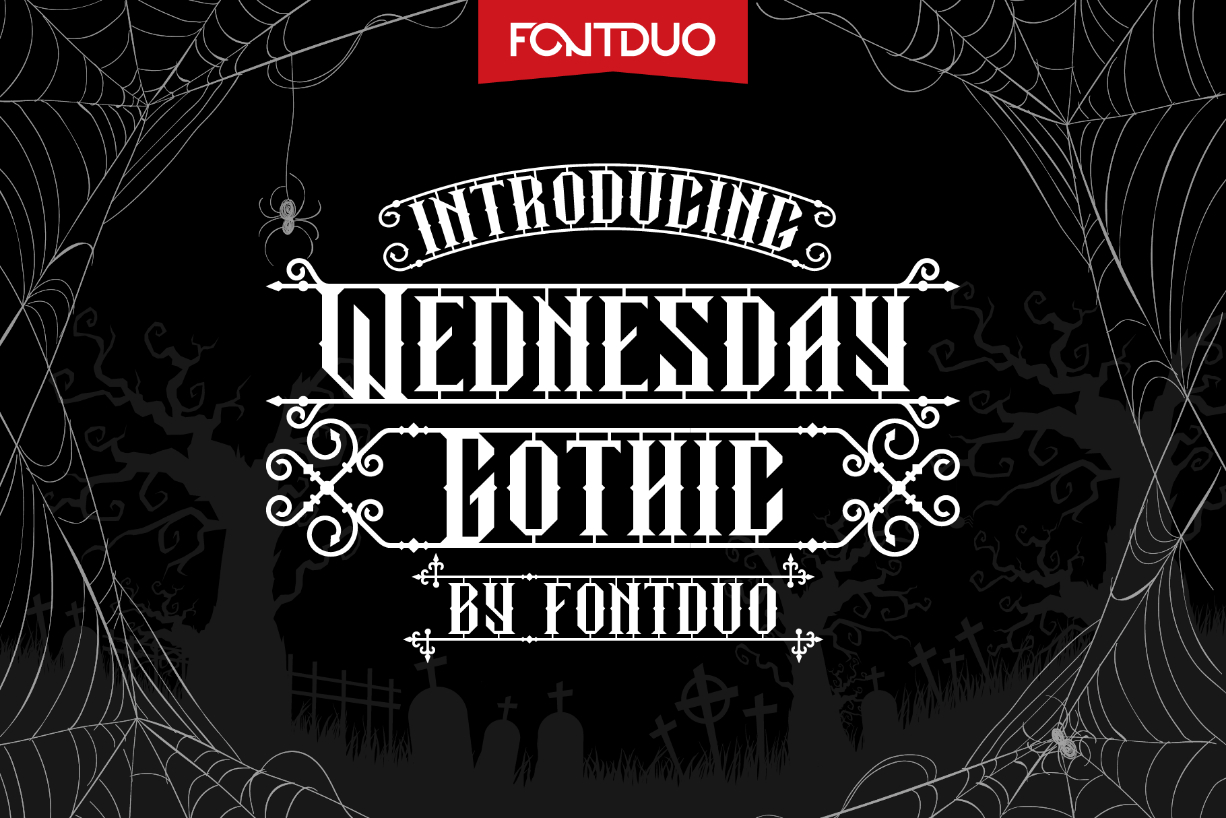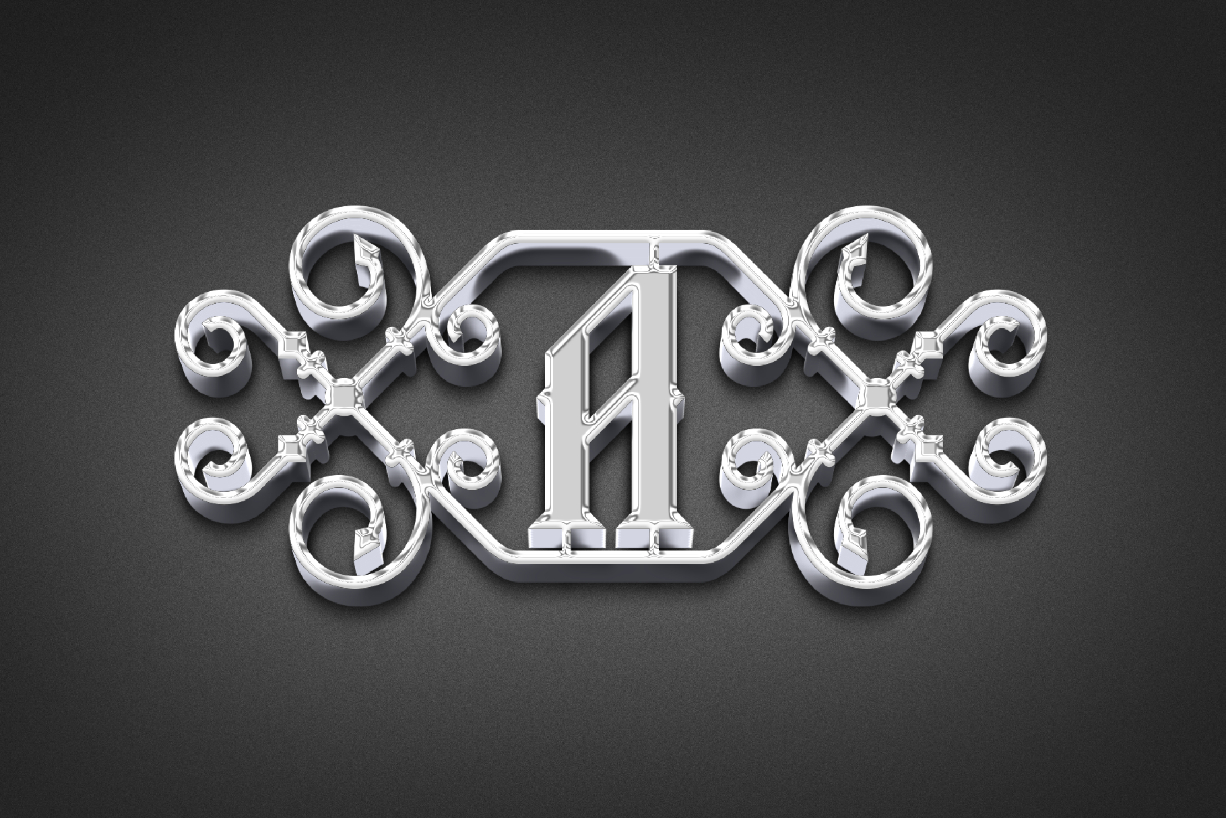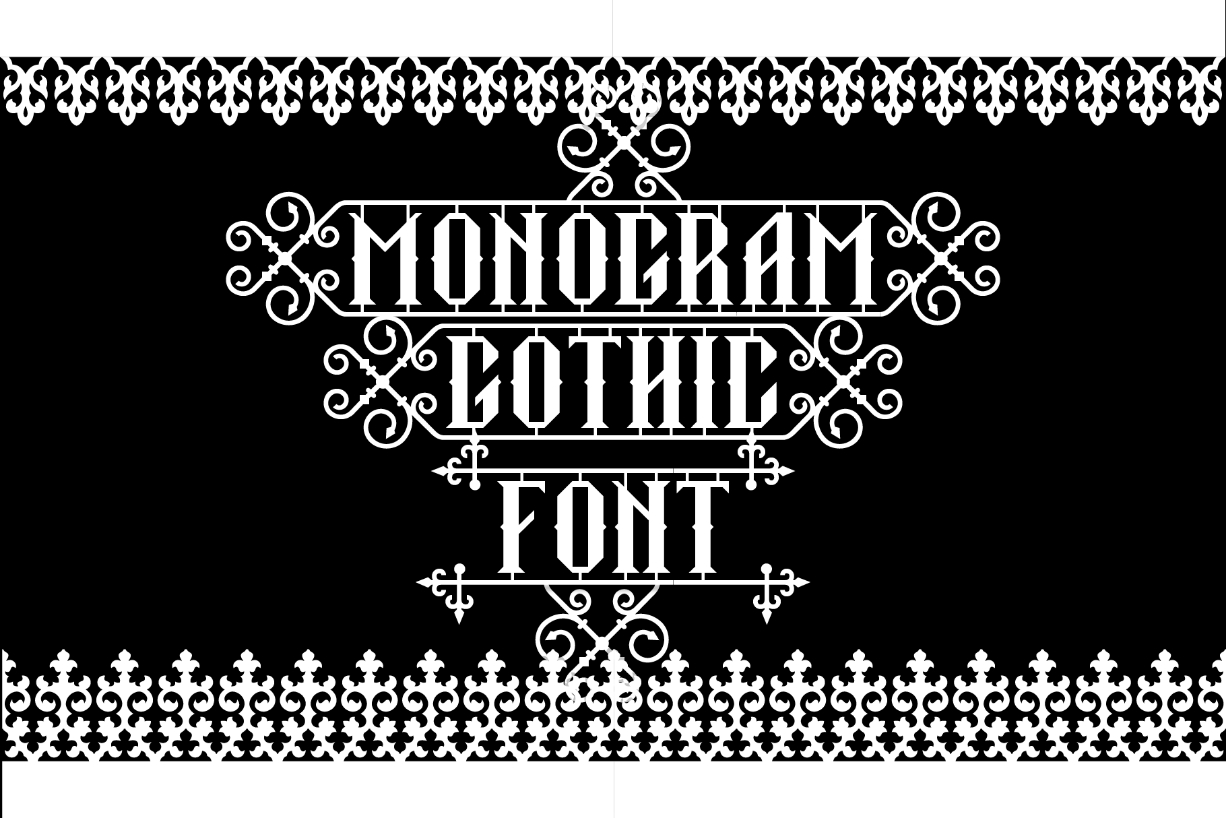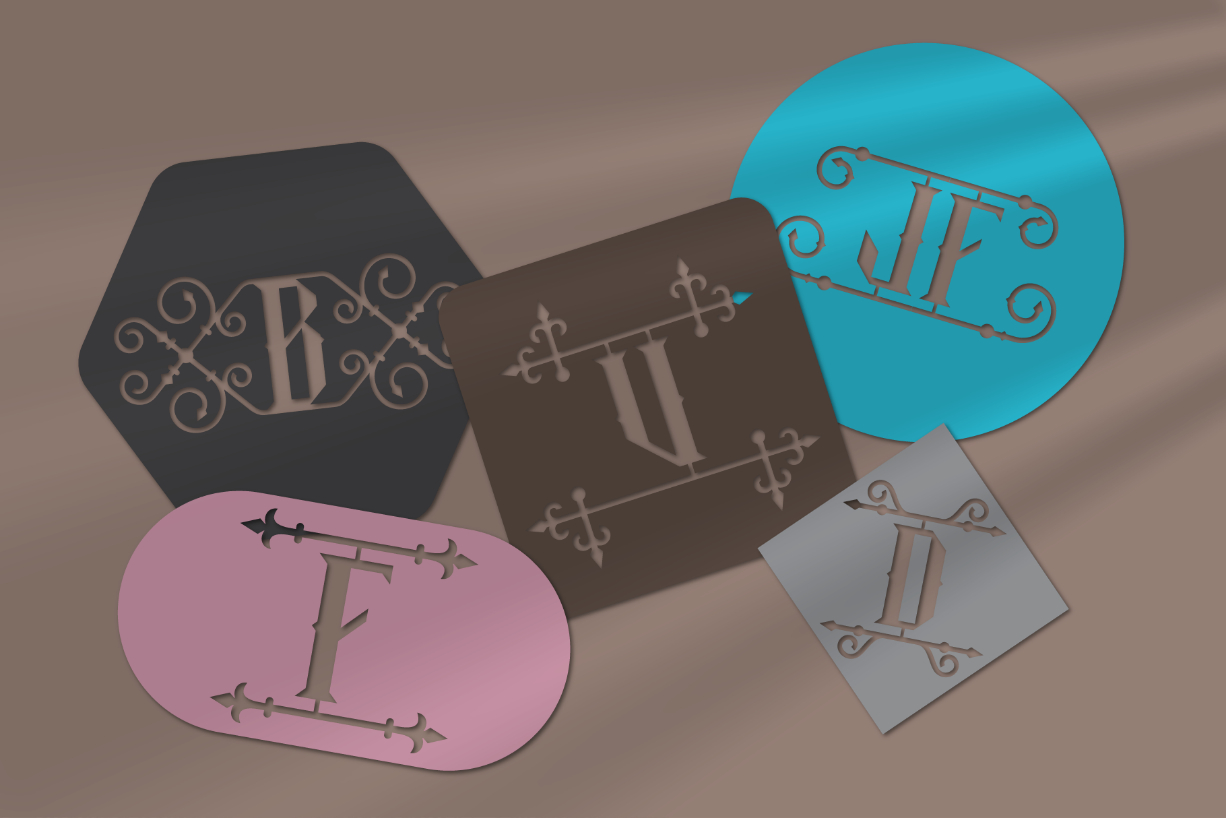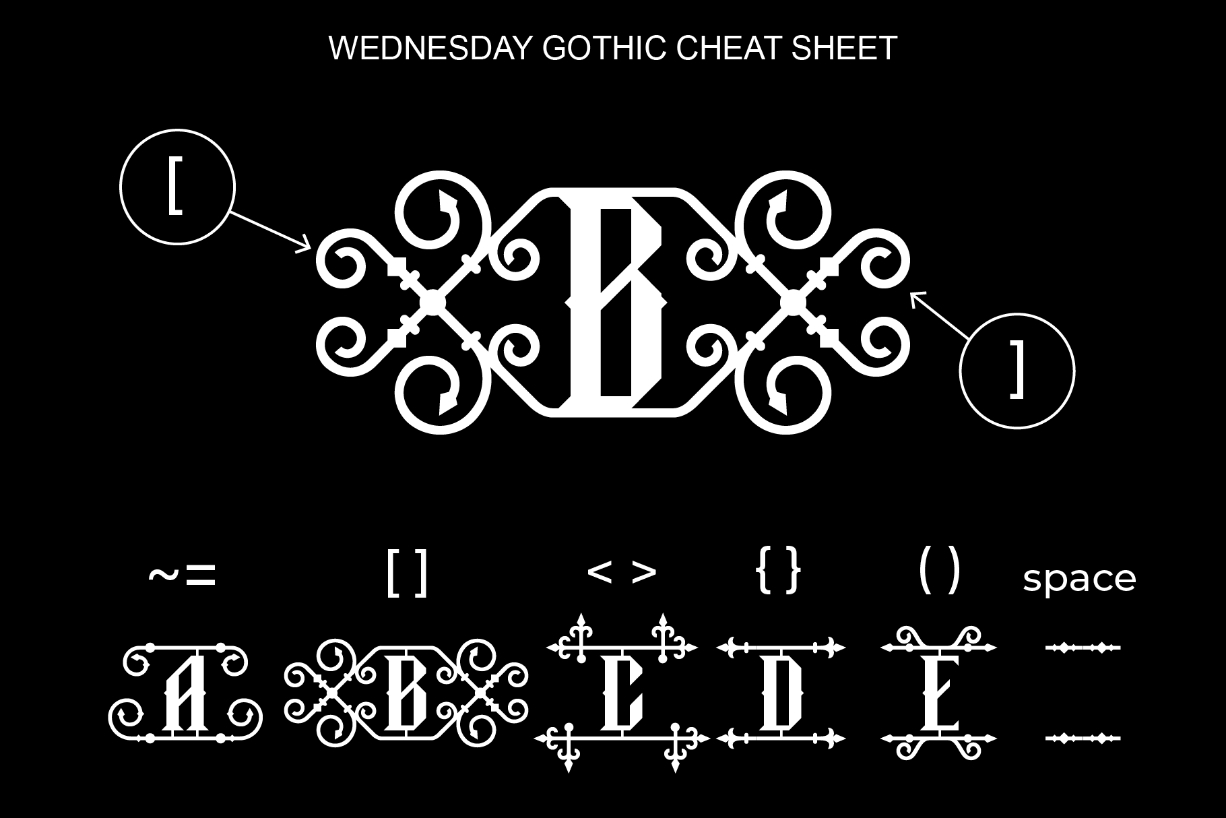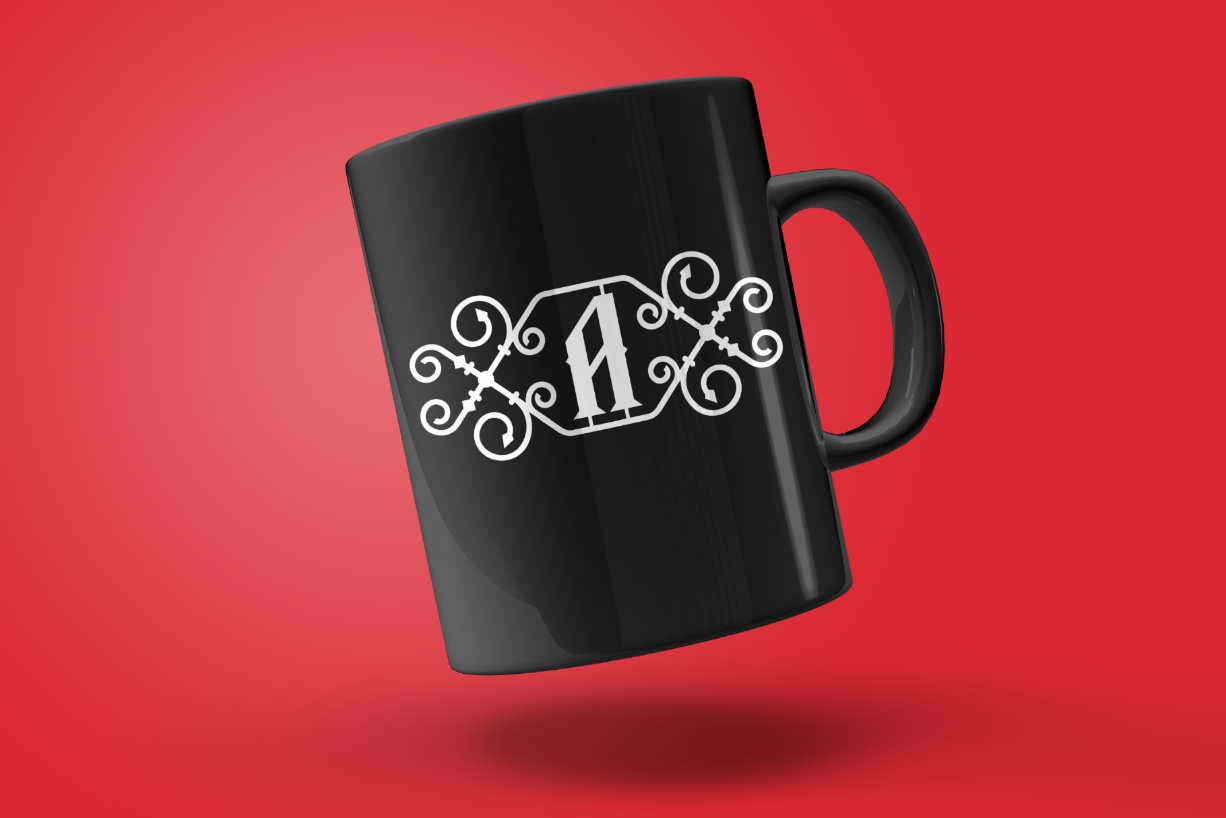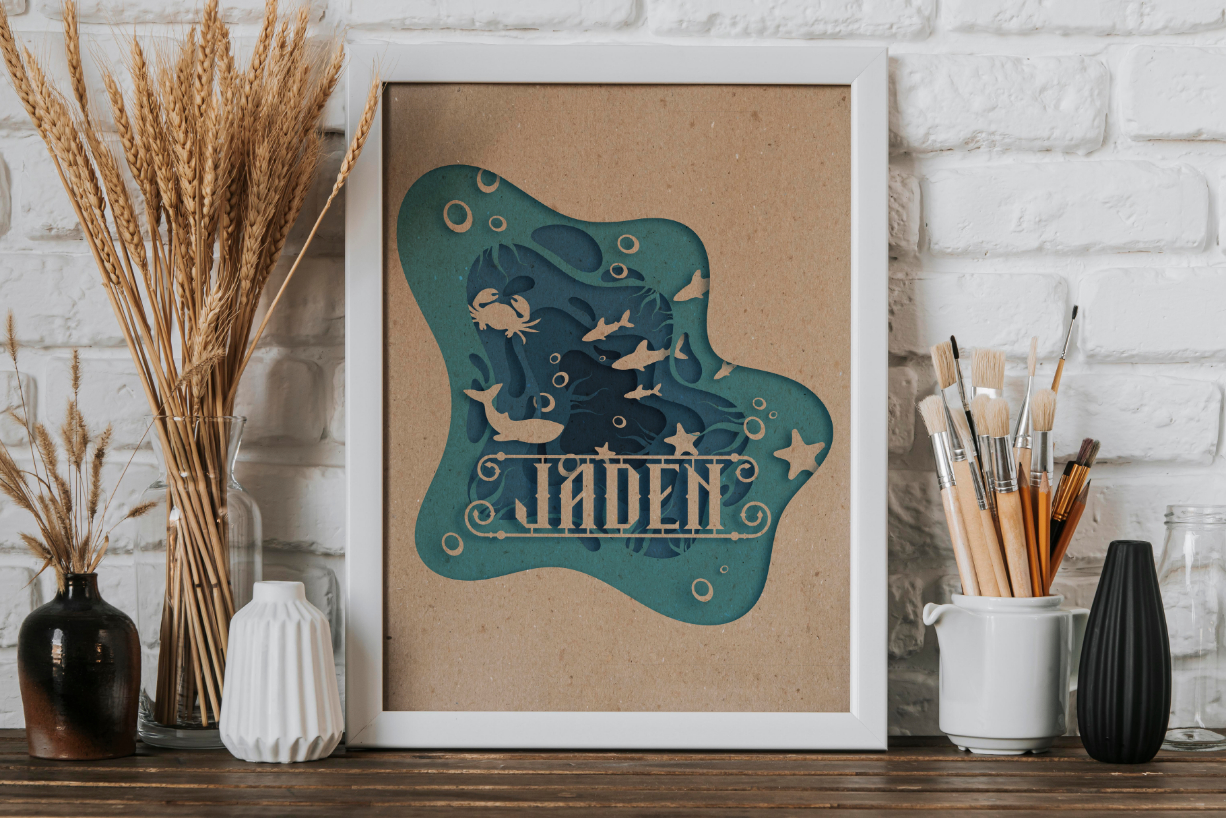
Wednesday Gothic Font
About Wednesday Gothic Font
Wednesday Gothic is a modern and all-caps font, featuring angular shapes and bold lines that evoke a sense of strength and power, while the ornament pairs give it a refined yet playful feel. Wednesday Gothic is suitable for use in branding, logos, and other design projects.